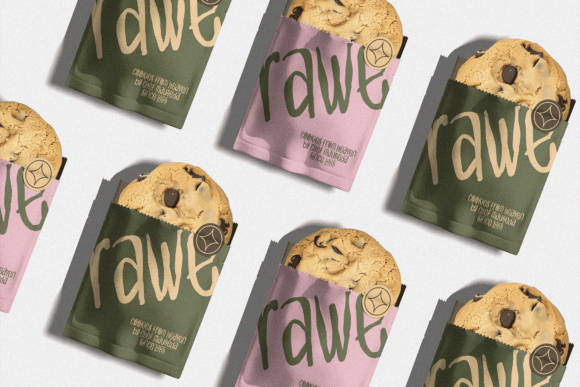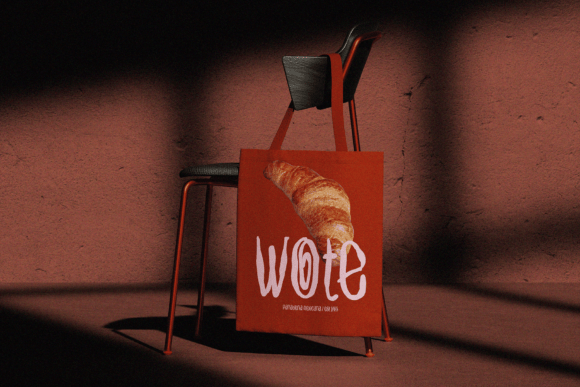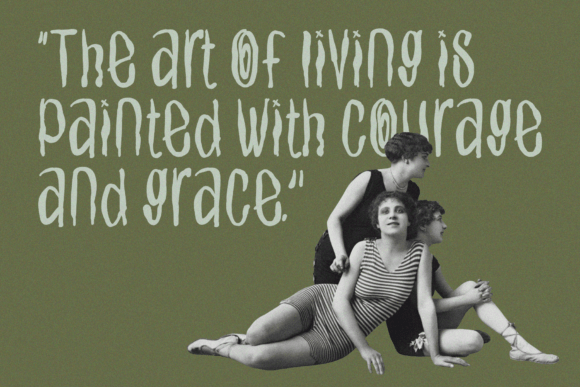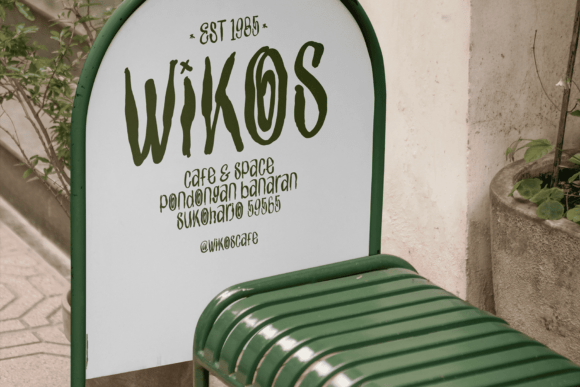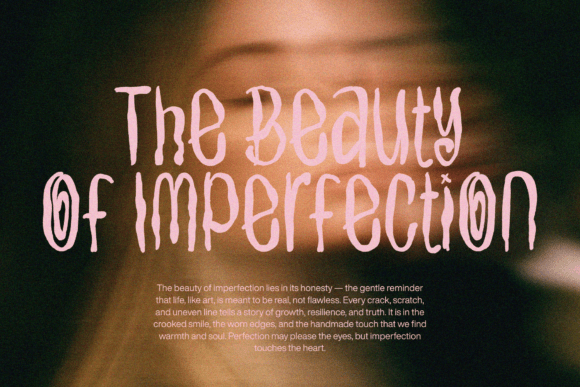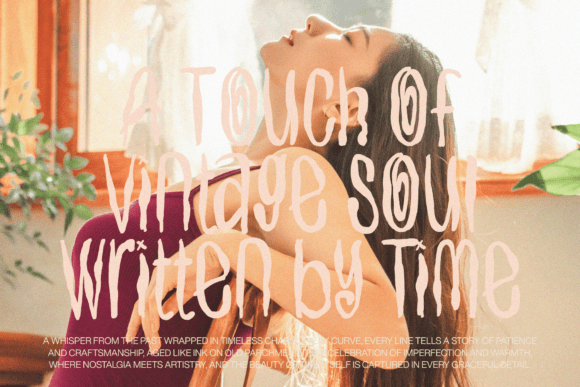
Introduction to Omiensa Font Font
Fonts play a crucial role in design, and the Omiensa Font font is a typeface that brings both character and versatility to any project. Whether you’re working on a branding project, a website, or a print design, the Omiensa Font font offers a unique style that can elevate your work.
Omiensa is a classic artisanal handwritten font crafted with a beautifully raw and authentic touch.
It blends the warmth of hand-drawn lettering with a subtle vintage vibe, creating a truly aesthetic and character-rich typeface perfect for expressive and thoughtful branding With its imperfect strokes and handcrafted texture, Omienza captures the essence of traditional artistry — simple, nostalgic, and deeply human.
Key Features of Omiensa Font Font
Why Choose Omiensa Font Font?
The Omiensa Font font is more than just a typeface – it’s a design tool that helps you communicate your message with style and clarity. Its unique character set and versatile design make it suitable for a wide range of applications, from elegant invitations to bold headlines.
With its carefully crafted letterforms and balanced proportions, the Omiensa Font font ensures readability and visual appeal across all mediums.
What makes Omiensa Font font special?
The Omiensa Font font stands out with its unique design, exceptional readability, and versatility across various design applications.